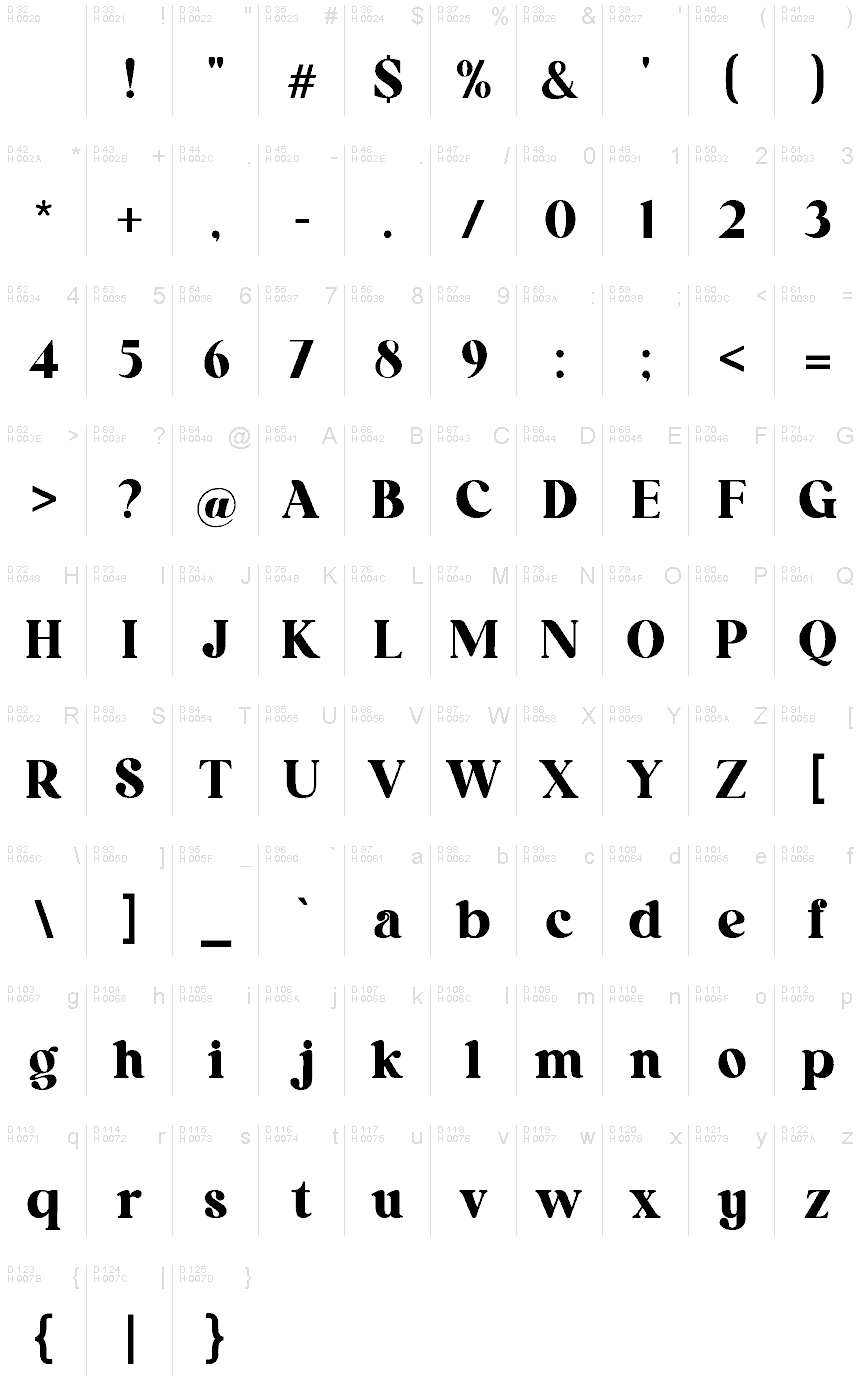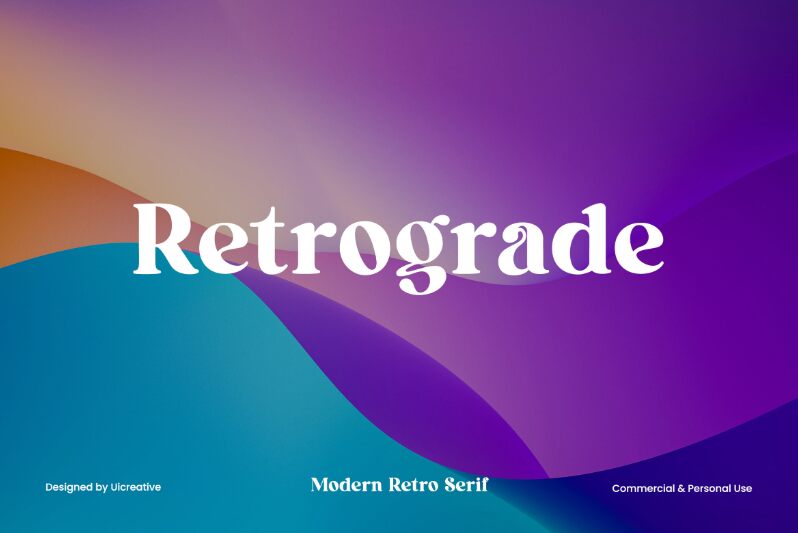
Retrograde Regular
Retrograde font from UI Creative is a bold serif font with a strong, dominating presence that demands attention in each and every word. An ornate style with various decorative flourishes can be noticed which gives an Old Victorian appeal to this work of art. The vintage appeal is thus completed as the expressive letters get to shine through freely.
Get your text in Retrograde for designing book headlines and subheadings, covers of old books and magazines, movie tickets, album cover artworks, or any other occasion. The free font also works for T-shirt designs or tattoo ideas with small texts on business cards among other places.